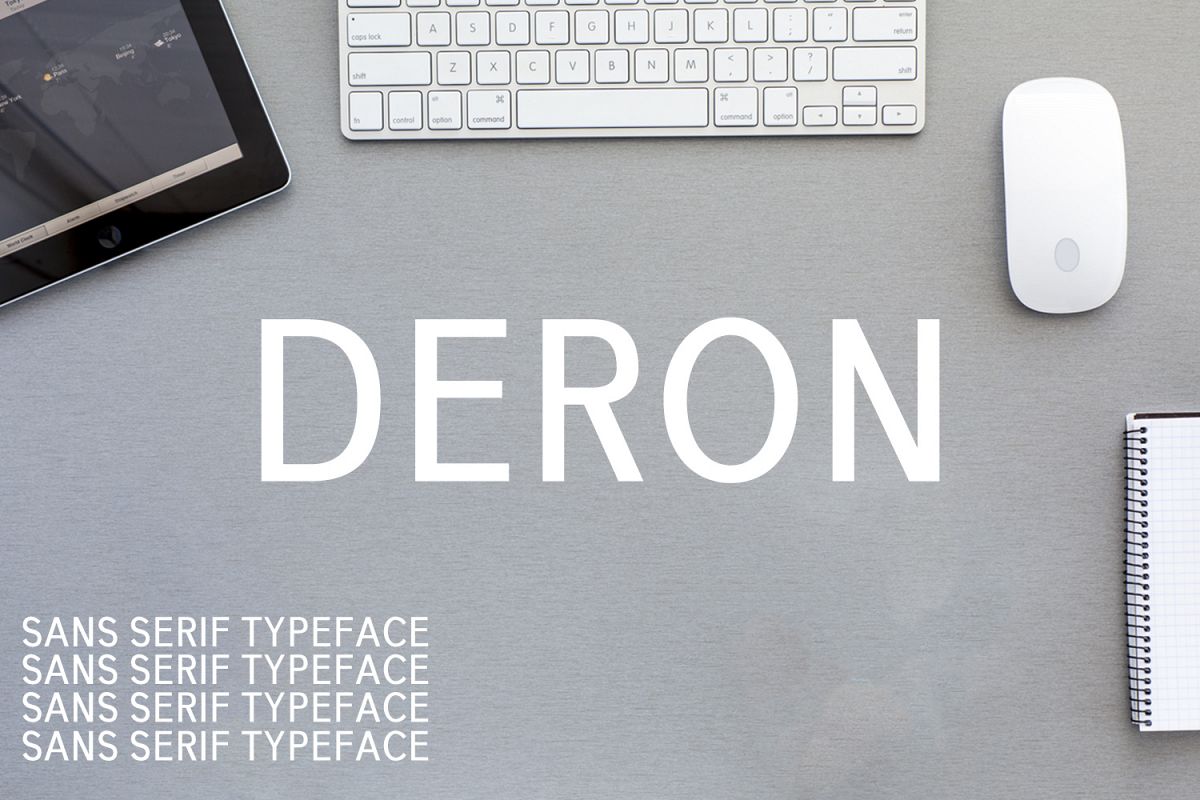
Deron Sans Serif Typeface
Deron Sans Serif font is a set of 10 weights font family. It is good for making creative templates and stationary. Deron typeface suits best for modern / clean designs, logos, headlines, banners and templates etc.It looks gorgeous in all caps with a wide-set spacing if you want to try a classy look, or beautiful on its own in capital and lowercase letters for something completely timeless.Included Features:
• Regular, Thin, Light, Outline, Bold, Black and Italic Weights
• Extras: Uppercase Multilingual Letters, Lowercase Multilingual Letters, Numbers & Punctuation + Alternatives.
Highlights
• Deron is a highly versatile Font Family Pack.
• Includes 10 weights
• The perfect choice for Modern, Fashion & Magazine Titles.
• Great for use on quotes, short phrases, magazines, logotypes and all sorts of advertising.